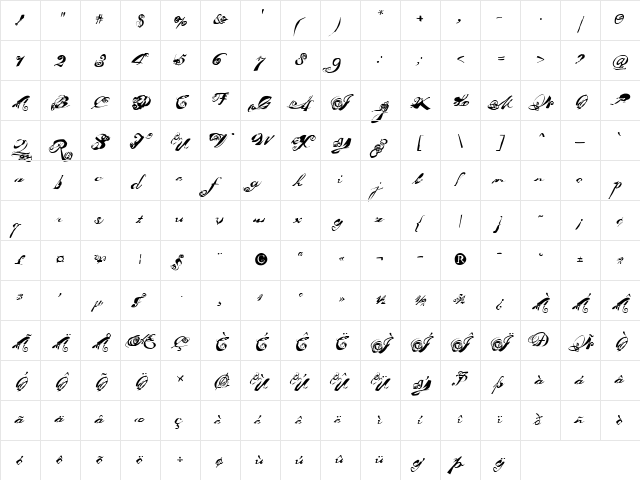
Masterpiece Regular
Design Context for Masterpiece Typeface
Masterpiece is a composed and adaptable typeface that performs quietly and consistently across a wide range of design contexts.